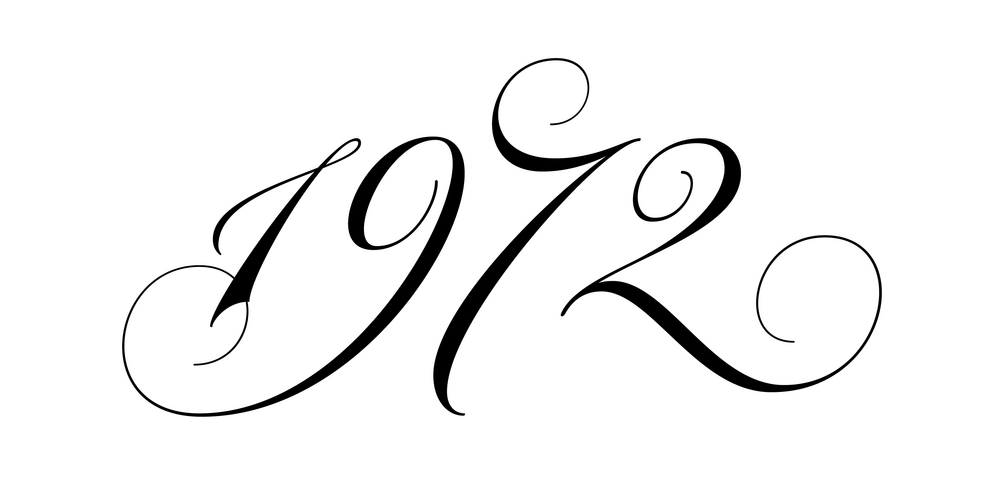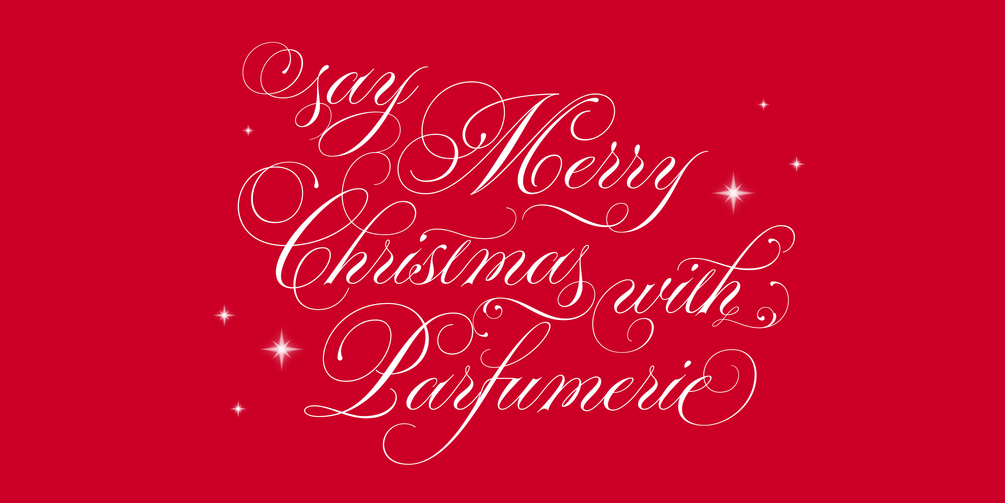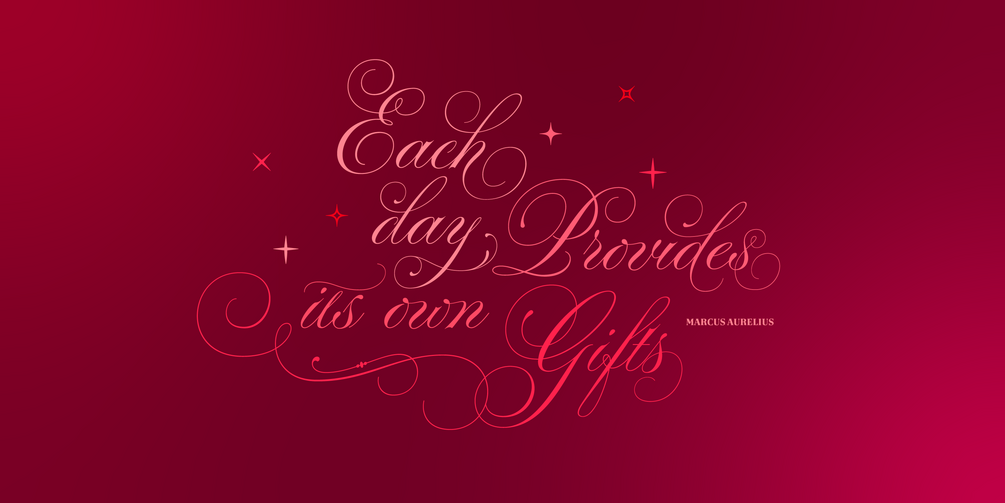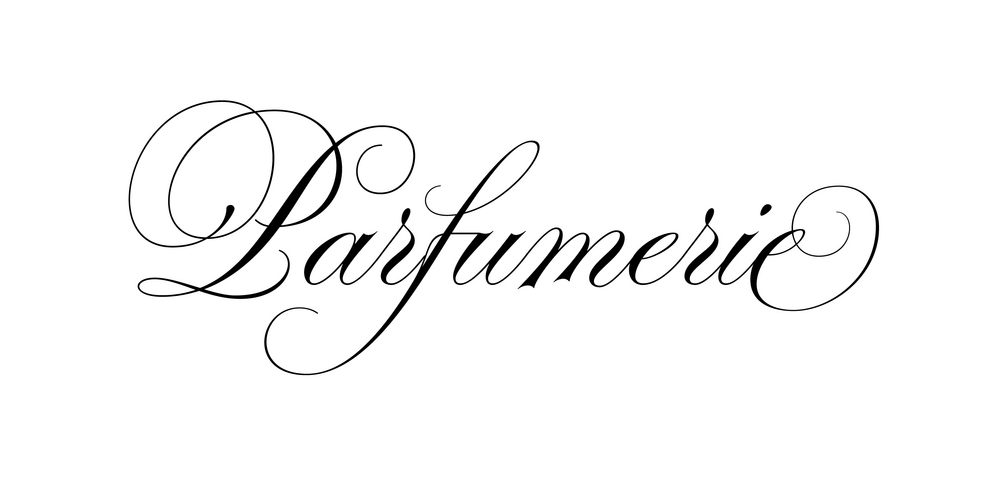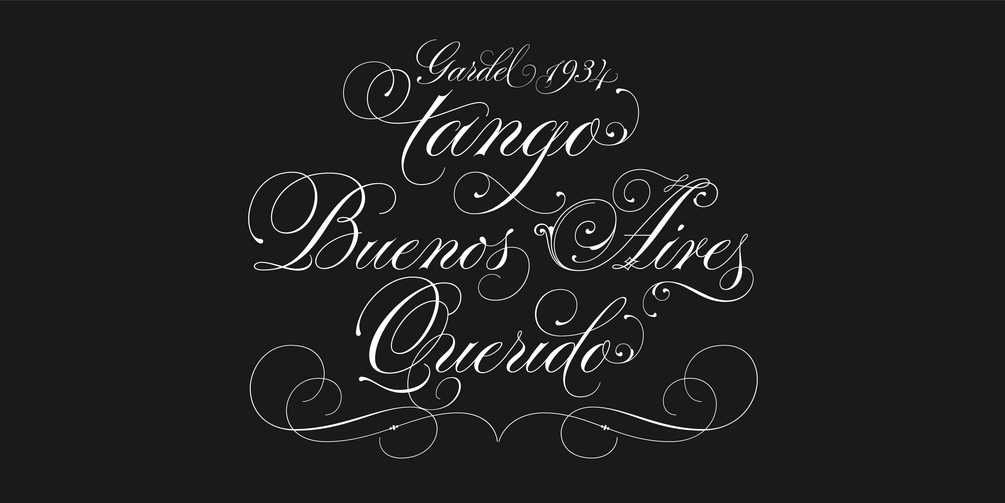
Parfumerie
Parfumerie Script Pro contains over 2500 glyphs, among which are swashes, ornaments and decorative alternates. To get more information about features and alternates, see the User Guide.